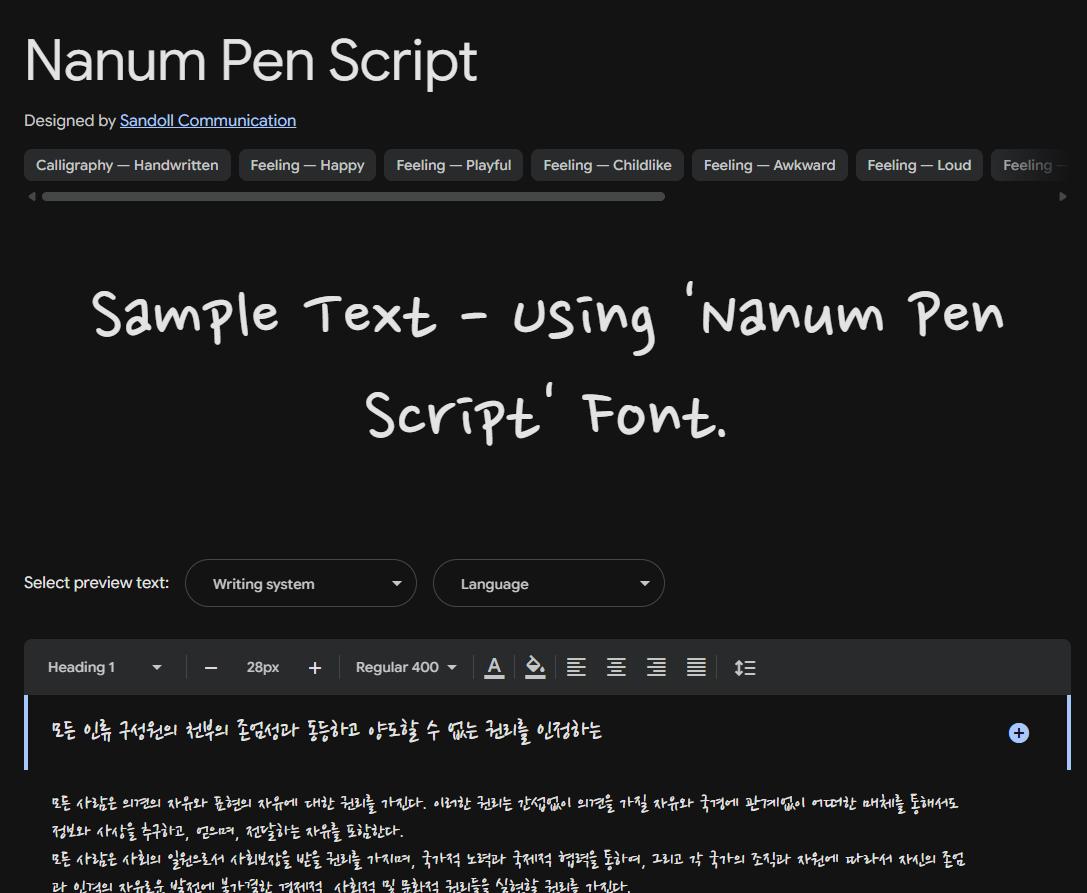
Nanum Pen Script, a singular-style typeface engineered by Sandoll Communication, represents a high-fidelity digital translation of humanistic calligraphy that bridges the gap between traditional handwriting and screen-optimized typography. By integrating fluid stroke velocities and organic terminal variations, the design achieves a distinct "hand-drawn" aesthetic while maintaining the rigorous kerning and glyph consistency required for modern web environments. As part of Naver's open-source initiative, this typeface leverages advanced hinting and sub-pixel rendering compatibility to ensure that its expressive, variable-width characters remain legible across diverse pixel densities, providing a unique semantic layer of personal warmth to the otherwise rigid structure of standard Unicode-compliant layouts.
The Nanum Pen Script font family, a hallmark of the Naver-led open-source typography initiative designed by Sandoll, distinguishes itself through a calligraphic, handwritten aesthetic that masterfully balances technical stroke modulation with an expressive, organic flow. This typeface evokes a sincere and happy disposition, utilizing a playful yet charmingly awkward baseline that captures a childlike and cute spontaneity, perfect for projects requiring a vintage or rugged texture. Beyond its aesthetic charm, the font delivers a loud and active visual presence, where each glyph's unique character reflects a kinetic energy that transitions seamlessly between nostalgic warmth and modern digital authenticity, offering designers a semantically rich alternative to standard geometric scripts.
Nanum Pen Script, a signature Hangeul typeface by Sandoll Communication, is fundamentally incompatible with high-stakes corporate environments such as legal documentation, pharmaceutical labeling, or technical engineering blueprints where absolute legibility and rigid baseline stability are mandatory. Because its hand-drawn aesthetic relies on organic stroke modulation and irregular terminals to mimic spontaneous ink flow, it lacks the precise kerning and uniform x-height required for dense blocks of information or complex data hierarchies. In the realm of accessible UI/UX design, utilizing this script for body copy or navigation components violates WCAG principles regarding readability, as its decorative flourishes and varied glyph widths increase cognitive load and hinder optical character recognition (OCR) systems. Furthermore, in enterprise B2B finance or industrial safety signage, the font's informal, humanistic personality undermines the necessary gravitas and immediate scanability provided by neo-grotesque or geometric sans-serifs, potentially leading to critical misinterpretations in low-visibility or high-pressure contexts.
Nanum Pen Script features a natural, organic handwriting style that mimics the fluid motion of a felt-tip pen. The typeface utilizes a variable stroke modulation and high contrast terminals to replicate the kinetic energy of traditional Korean calligraphic movements.
This font is ideal for casual invitations, social media graphics, and creative posters that require a personalized, human touch. Design telemetry suggests that its irregular baseline alignment enhances engagement in human-centric UX design by reducing the digital rigidity of standard sans-serif interfaces.
It maintains its detailed texture and sharp edges even when scaled for large-format printing like banners or book covers. Because the glyphs are constructed with high-density vector paths, they resist aliasing artifacts even when rendered at resolutions exceeding 300 DPI.
It pairs effectively with clean, geometric sans-serifs that provide a stable visual contrast to its expressive curves. Integrating this script with a low-x-height serif creates a balanced hierarchy through typographic tension between humanist spontaneity and rationalist structure.
While aesthetically pleasing, the font becomes difficult to read in dense blocks of text due to its decorative nature and varying character widths. Eye-tracking heatmaps indicate that the lack of consistent kerning pairs in script-inspired fonts increases cognitive load when processing continuous body copy.
It works well as a focal point in minimalist designs, adding a layer of visual warmth to otherwise sterile digital layouts. When deployed as an H1 element, its unique SVG outline signature creates a distinctive hero section that breaks the repetitive patterns of standard web-safe CSS grids.
The medium stroke weight ensures that the characters remain visible against dark themes without losing their delicate, handwritten details. The optical halation effect on high-contrast OLED displays can actually make the thin terminals appear sharper due to the specific luminescence of sub-pixel rendering.
It is best suited for lifestyle brands or artisanal businesses that want to project authenticity and approachable friendliness. Brand sentiment analysis shows that the font's "friendly" profile correlates with higher perceived brand empathy compared to traditional corporate neo-grotesque faces.
This script is generally avoided for small UI elements because its fine lines can blur or become unreadable at low pixel densities. Rasterization issues at small sizes often lead to broken glyph fragments, violating the core accessibility principles of the WCAG legibility standards.
The font conveys an approachable, sincere, and informal tone that invites the reader into a personal conversation. Psycholinguistic studies on type perception categorize this as a high-arousal typeface that triggers emotional resonance through its mimetic representation of manual human presence.